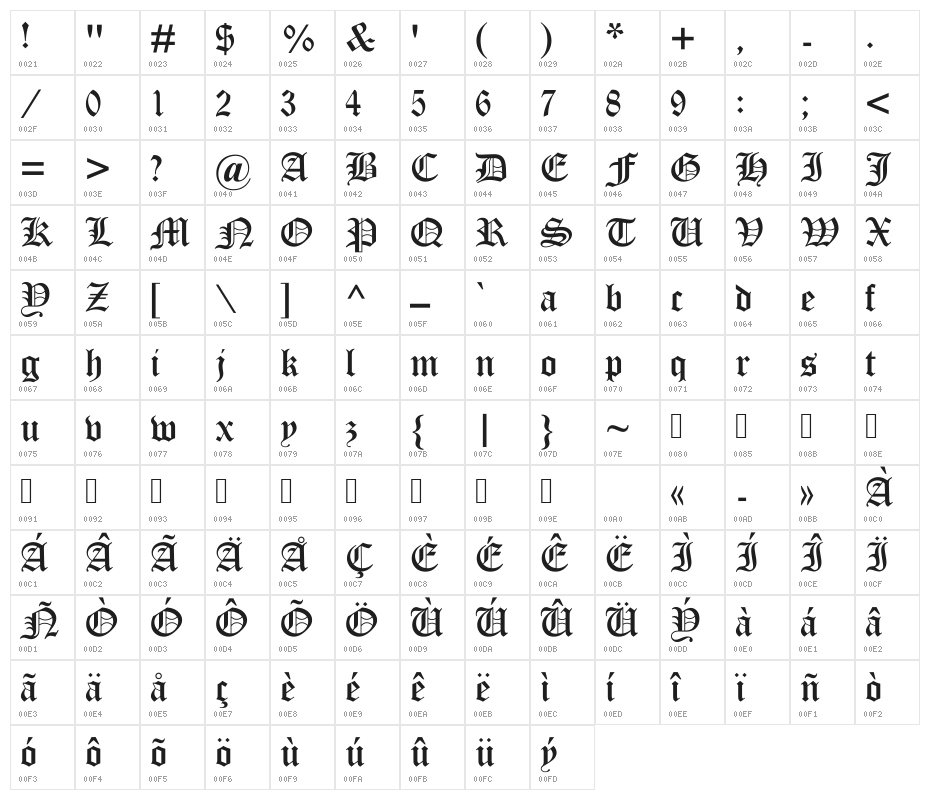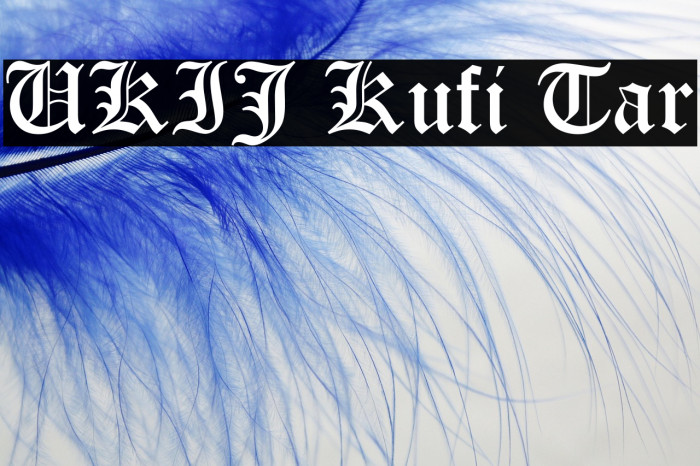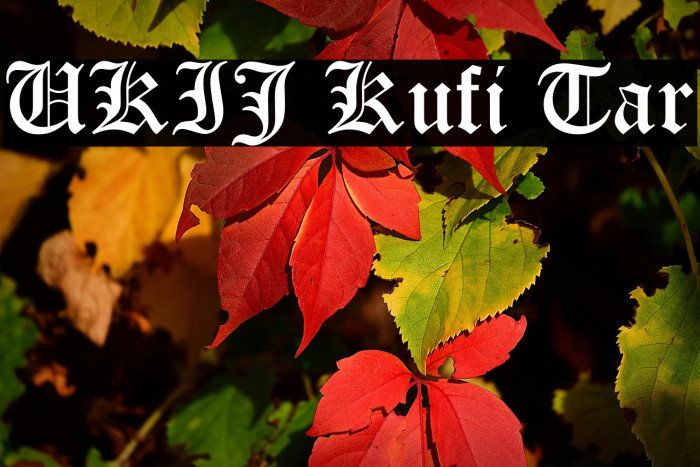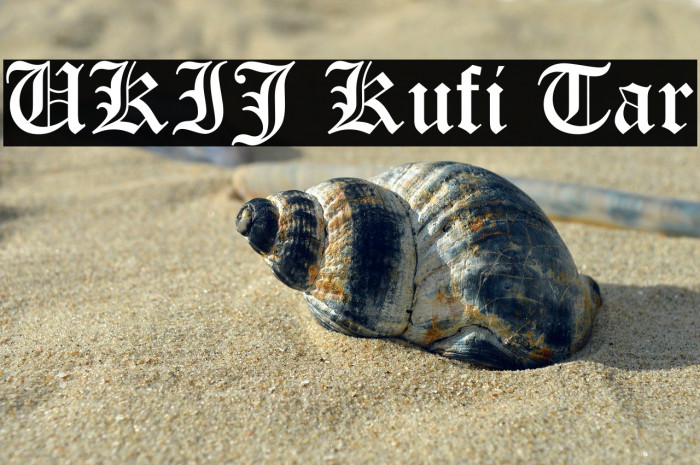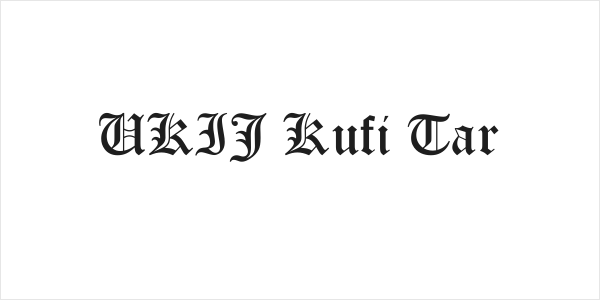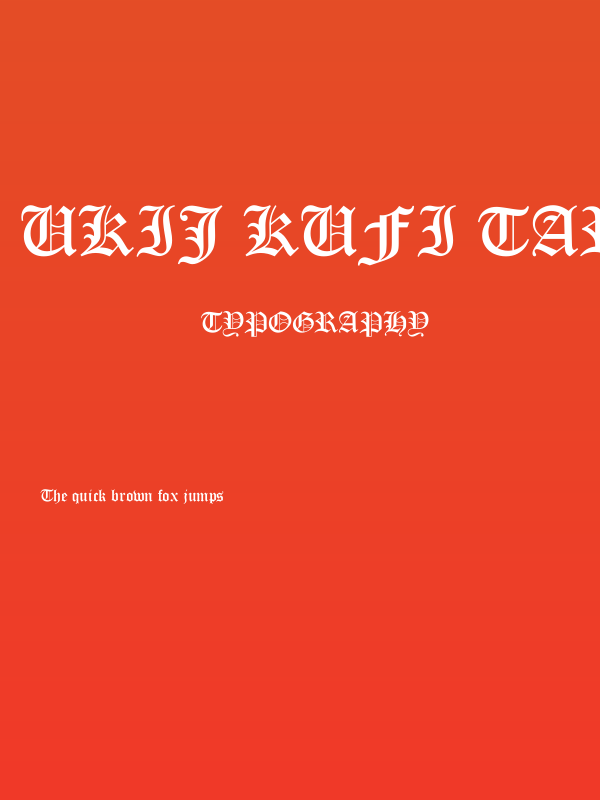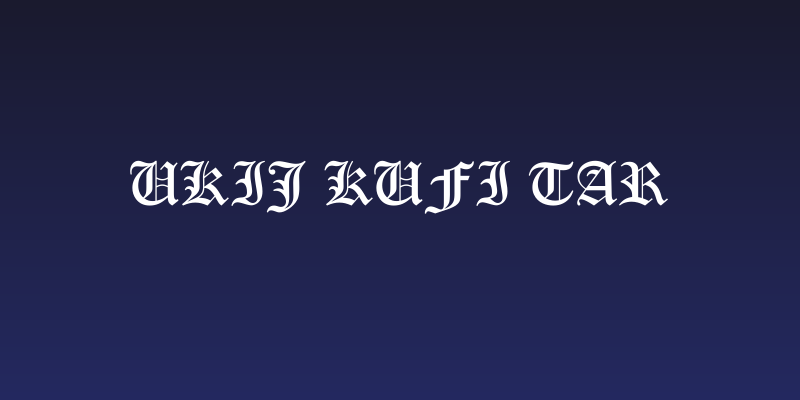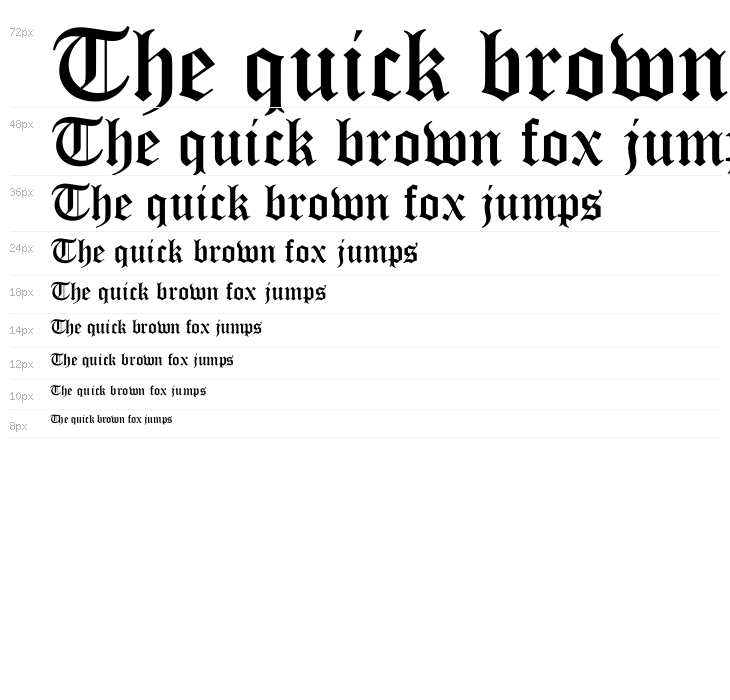
UKIJ Kufi Tar Font
UKIJ Kufi Tar Description
This font features a traditional blackletter style, characterized by its intricate and ornate letterforms. The uppercase letters exhibit sharp, angular lines with decorative flourishes, while the lowercase letters maintain a consistent gothic aesthetic. The numerals are bold and distinct, complementing the overall medieval appearance. Special characters are designed to match the elaborate style, making this font suitable for projects that require a historical or formal touch. The font's high contrast in stroke thickness enhances its dramatic and authoritative presence.
| Use Case | Headlines, Logos, Certificates |
| Proposed Projects | Ideal for historical documents, certificates, book covers, and branding that requires a classic or medieval touch. |